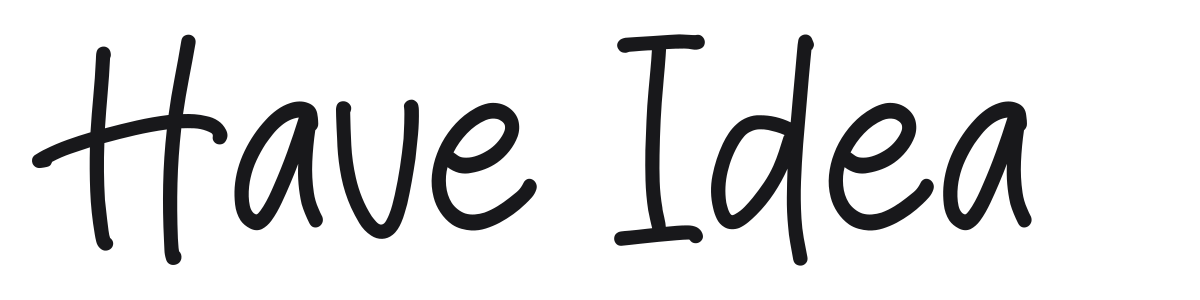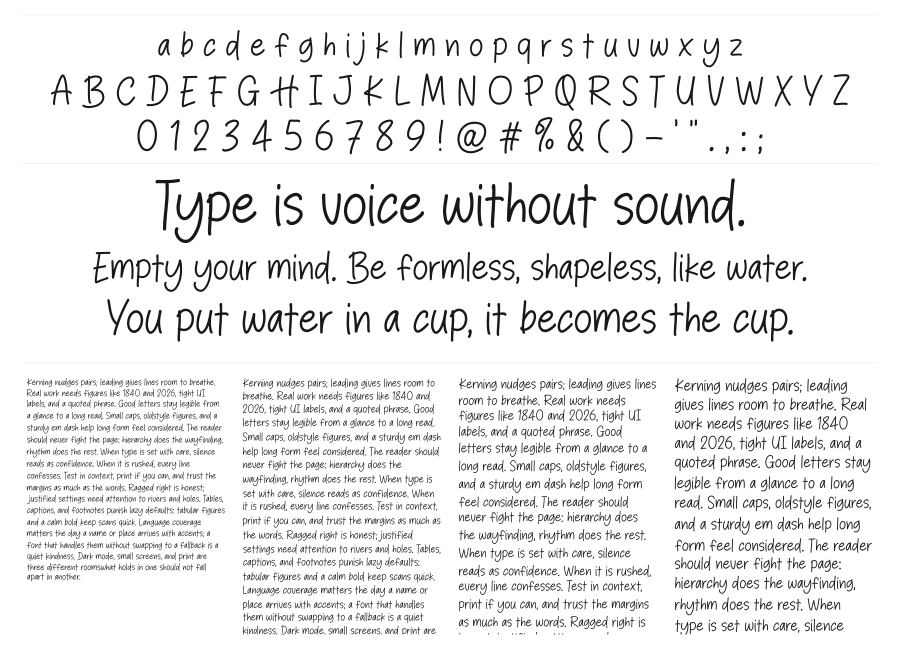
Have Idea
Have Idea is a casual upright handwritten font with a light, relaxed pen-on-paper feel. Rounded terminals and subtle stroke variation give it warmth without going saccharine. It works well wherever a human, personal touch is needed, from product packaging to social media graphics.